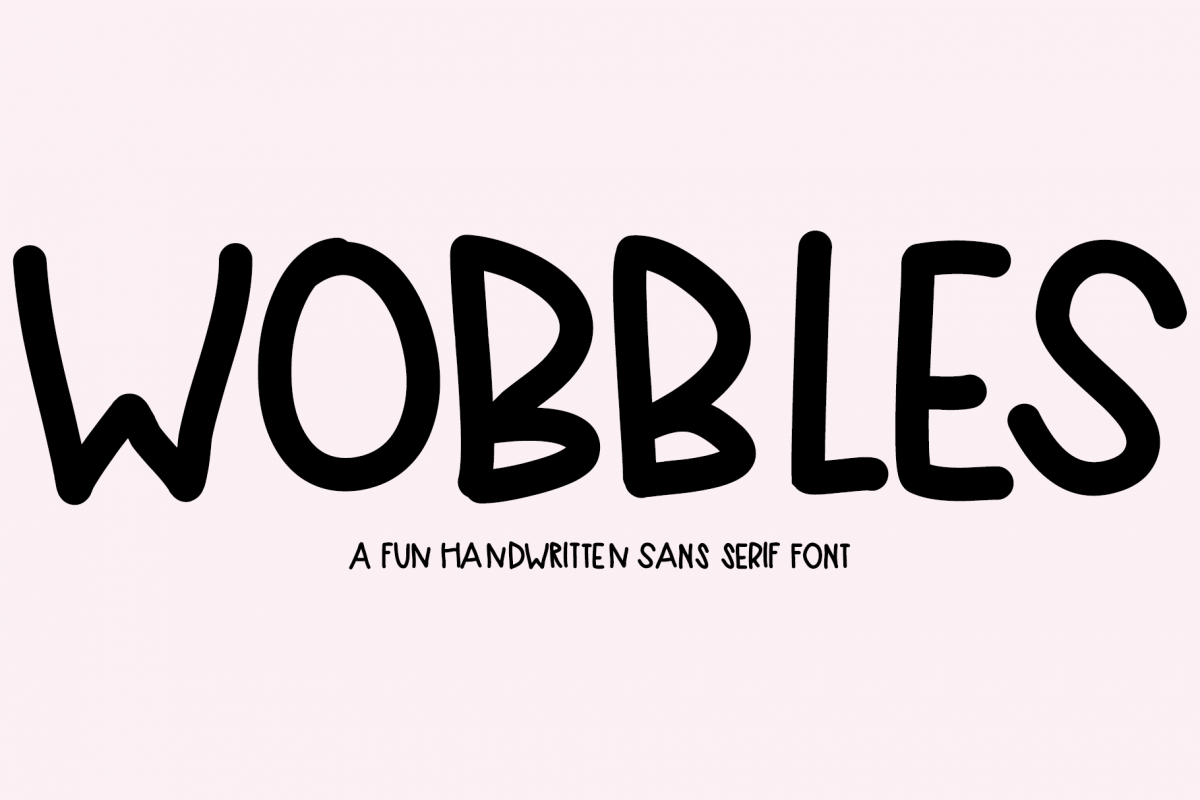
Wobbles
Wobbles is a fun handwritten sans serif font that was created on the iPad Pro.
For best results, alternate between switching caps lock on and off for a genuine handwritten look!